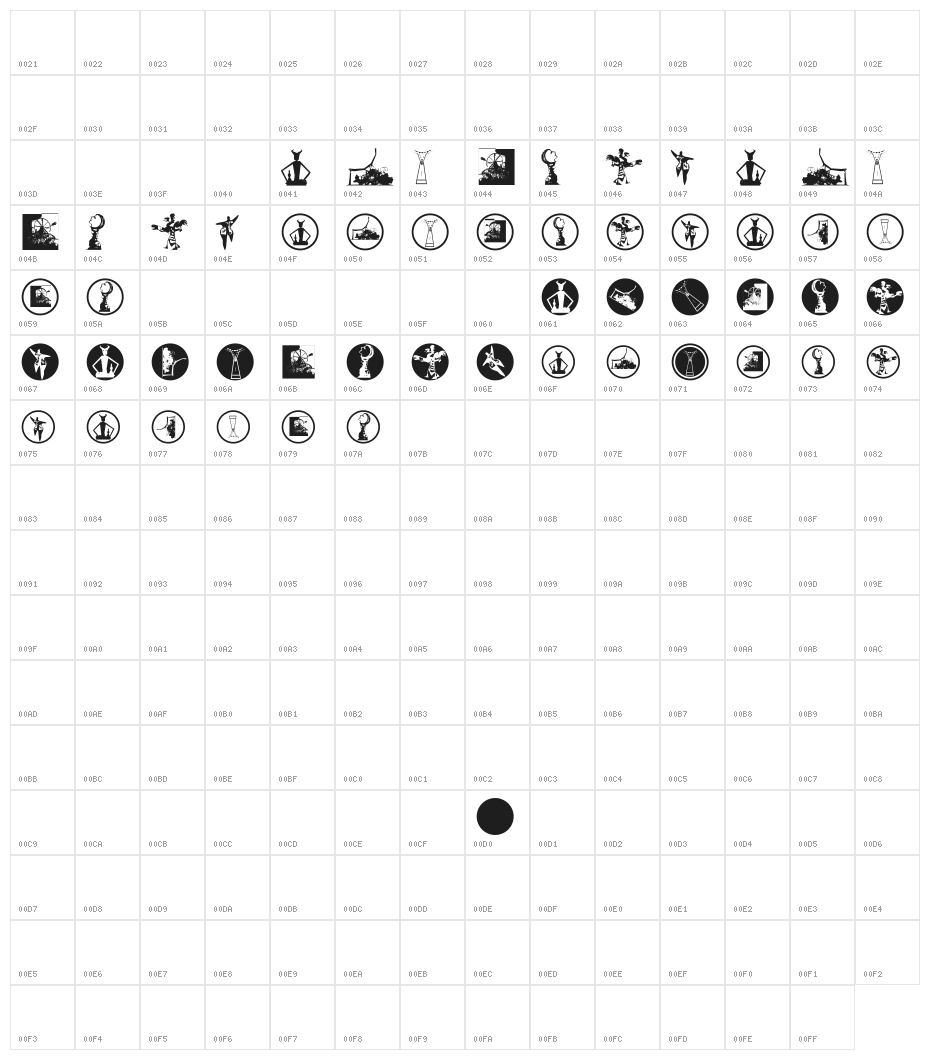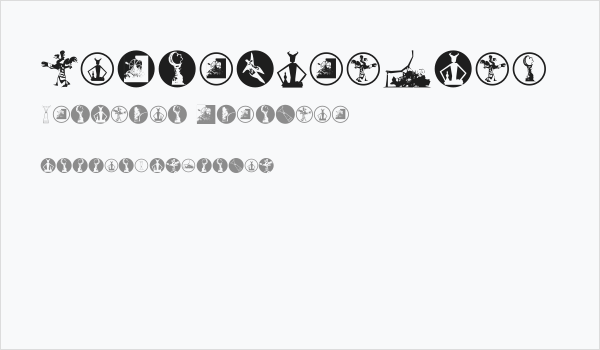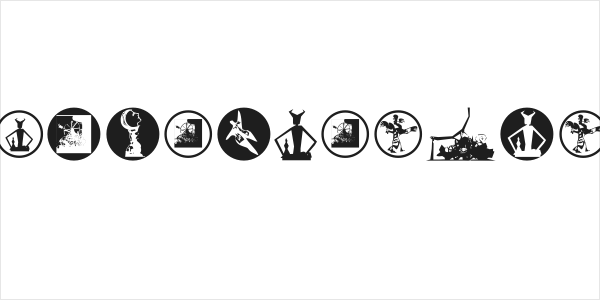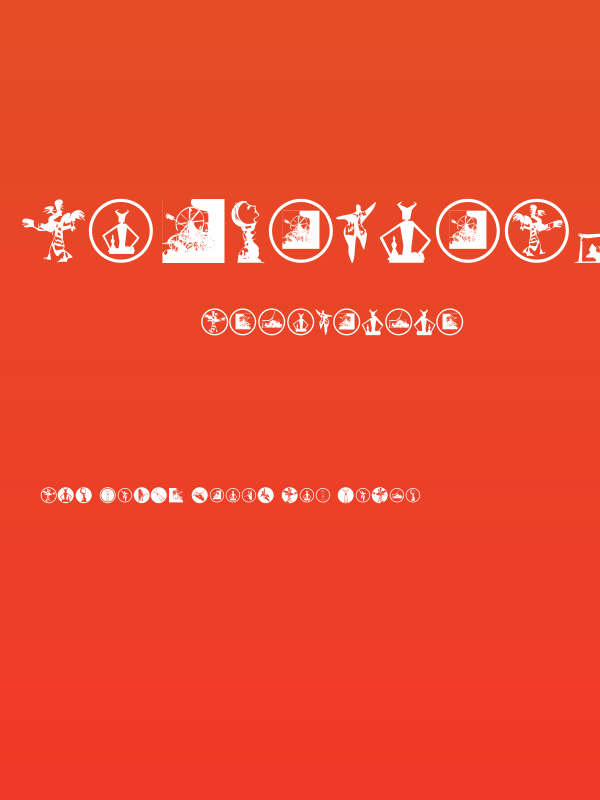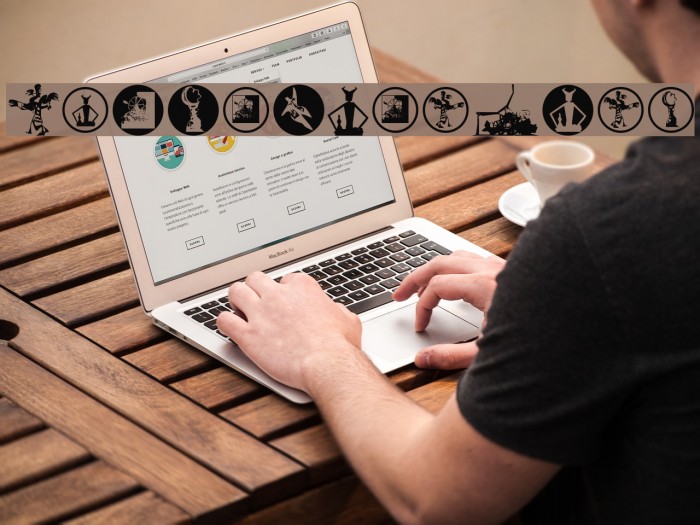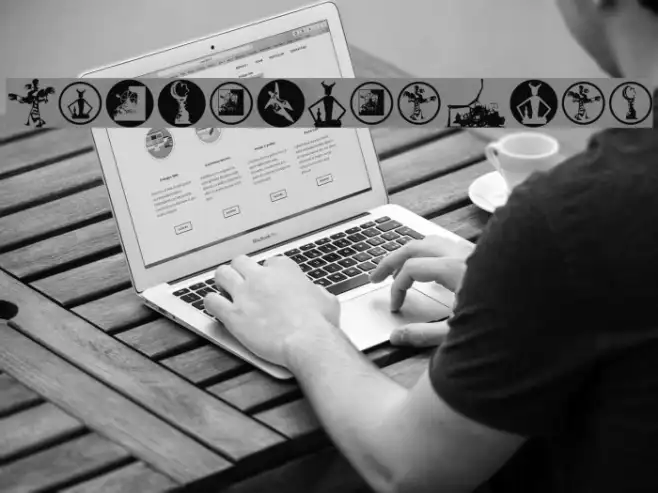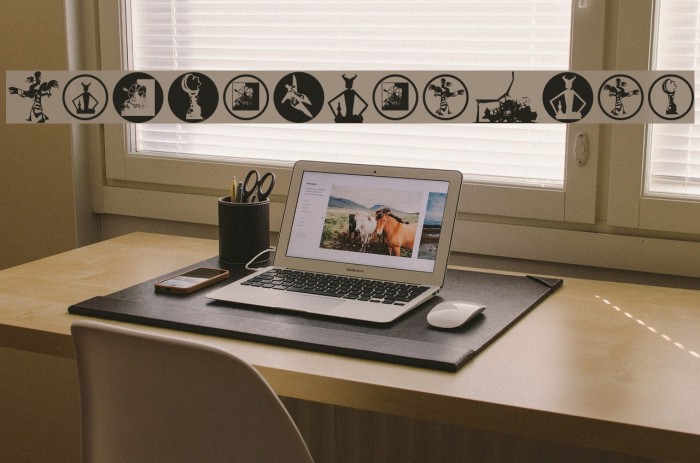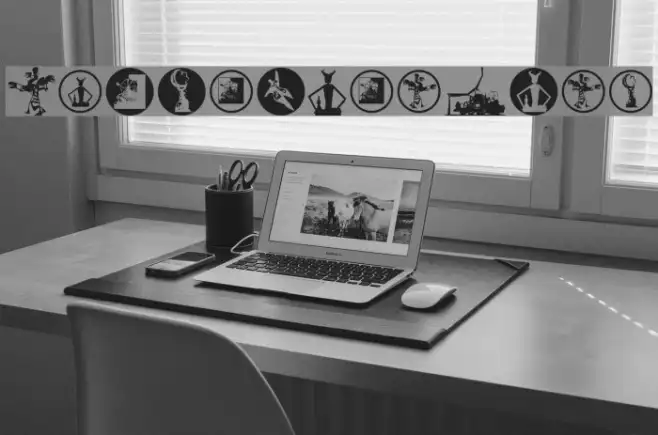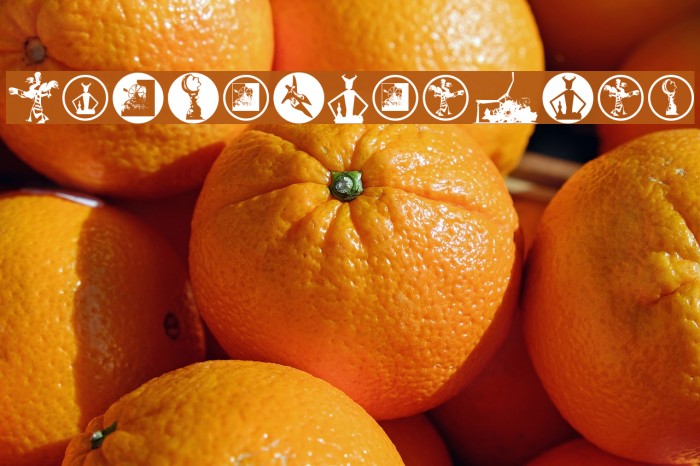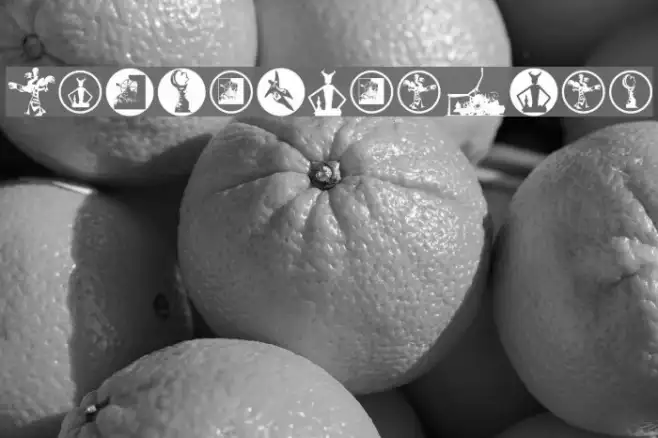
ModernArtBats Font
ModernArtBats Description
This collection features a series of artistic and abstract symbols, each enclosed within a circular frame. The designs are reminiscent of modern art sculptures and installations, with a playful and imaginative flair. Each symbol is unique, showcasing a variety of shapes and forms that evoke creativity and innovation. The monochromatic palette enhances the boldness of the designs, making them stand out distinctly. These symbols are perfect for adding a touch of modern art to any project, offering a unique visual experience that captures the essence of contemporary creativity.
| Use Case | Logos, Artistic designs, Branding |
| Proposed Projects | Ideal for use in graphic design projects, branding, modern art exhibitions, and creative digital content. |